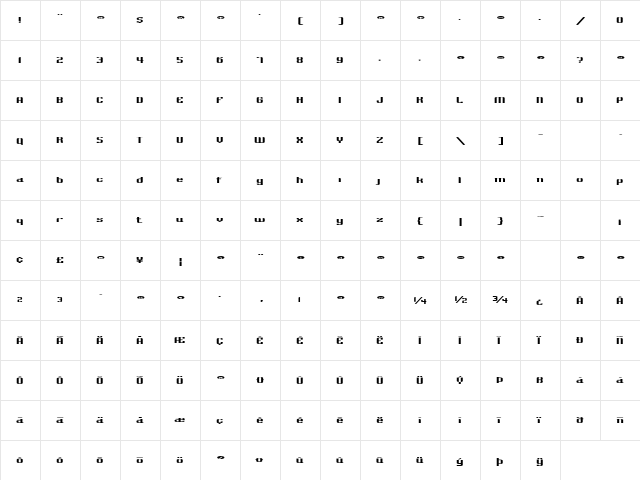
Badloc ICG Compression Regular
Design Context for Badloc ICG Compression Typeface
Badloc ICG Compression takes a measured approach to typography — its balanced proportions and neutral character make it a reliable workhorse for both digital and print work.